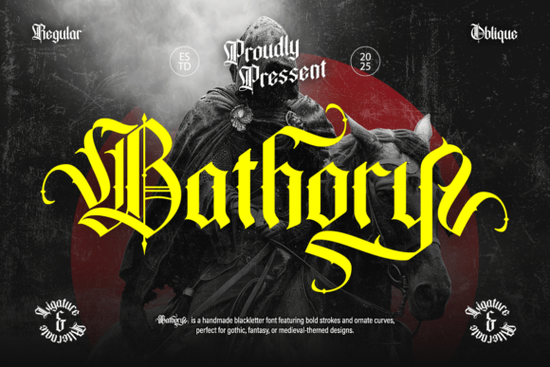
Looking for a gothic blackletter font that actually feels dark and dramatic without looking cheap or overly stylized? Bathory Font is a blackletter typeface built for projects that need a bold, mysterious edge. With thick ornamental strokes, sharp curves, and dramatic flourishes, it delivers that classic gothic atmosphere right out of the box. It comes in both Regular and Oblique styles, so you get some visual flexibility depending on the mood of your design.
Whether you're working on a metal band poster, a fantasy book cover, or a dark-themed merchandise line, this font was made with those exact use cases in mind. Let's break down what makes it worth a closer look.
What kind of projects does the Bathory Font work well for?
This font thrives in dark, atmospheric design themes. Think medieval fantasy, occult aesthetics, or anything that channels worlds like Dark Souls or Diablo. Here are some practical uses:
- Metal and rock band posters the sharp curves and dramatic strokes fit the genre perfectly
- Game and movie title covers especially for RPG, horror, or fantasy genres
- Festival and event flyers works great for metal festivals or themed nights
- Tattoo designs the blackletter style pairs well with traditional and neo-traditional tattoo art
- Book titles and chapter headings ideal for dark fantasy or horror novels
- Merchandise and print-on-demand products t-shirts, hoodies, stickers, and mugs with a gothic edge
- Branding for niche businesses occult shops, themed bars, gaming studios
What's the difference between the Regular and Oblique styles?
The Regular style gives you the standard upright blackletter look solid, bold, and imposing. The Oblique style tilts the characters slightly, adding a sense of motion and urgency. This is useful when you want the same dark feel but with a bit more energy, like on a concert flyer or a dynamic logo.
Having both styles in one package means you can mix and match within a single project. Use Regular for the main title and Oblique for a subtitle or accent text. It's a small detail that makes a big difference in how polished the final design looks.
Is this font good for print-on-demand designs?
Absolutely. If you sell on platforms like Redbubble, Merch by Amazon, or Etsy, a font like Bathory can help your dark-themed designs stand out. Gothic and blackletter fonts tend to perform well in niches like:
- Heavy metal and rock apparel
- Gaming merchandise
- Horror and Halloween products
- Dark humor or edgy quote designs
The key is using a font that looks professional and intentional. Cheap blackletter fonts often have uneven spacing or rough edges that show up badly at print resolution. Bathory's clean strokes hold up well across different sizes and formats, which matters when you're scaling a design from a mug to a poster.
How does Bathory compare to other blackletter fonts?
There's no shortage of blackletter and gothic fonts out there, but not all of them are built with the same level of detail. Bathory sits in a sweet spot it's ornamental enough to feel dramatic but still readable at reasonable sizes. Some blackletter fonts go so heavy on the flourishes that they become illegible, especially in body text or smaller applications.
For a broader overview of this particular typeface, you can also check out the Bathory font details page for more context on its styles and applications.
Who is this font really for?
Bathory is a solid pick for anyone working in dark or fantasy-themed design whether you're a freelance designer, a small business owner creating branded materials, a crafter selling handmade goods, or a hobbyist who just loves gothic typography. It's not a universal font you'd use for everything, but for the right project, it does the job exceptionally well.
It's also worth noting that blackletter fonts like Bathory have historical roots in medieval European manuscript lettering. If you're curious about the history behind the style, Blackletter on Wikipedia gives a solid overview of where this lettering tradition comes from.